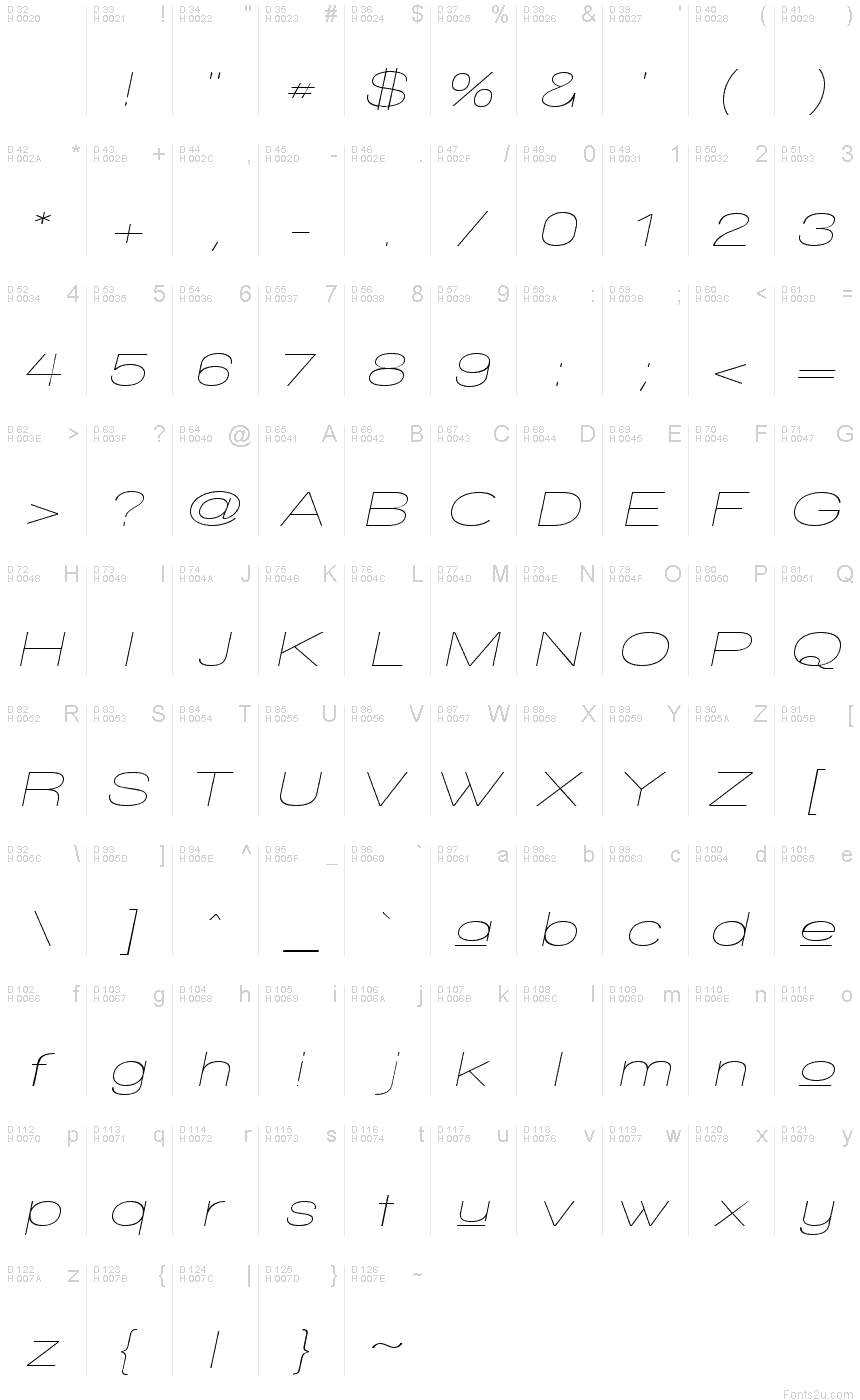
Walkway Upper Oblique Expand
Walkway Upper Oblique Expand by G.M. of GM is a free geometric sans serif with exceptionally fine strokes and clean, very broad, airy proportions. Clean oval curves sit among long, rising diagonals, and their sharp junctions make the lettering look spare, architectural, and deliberately weightless.
High-end fashion branding is its clearest setting, with the slender expanded shapes also suited to small perfume packaging, gallery posters, and arts magazine covers. Across these uses, the repeated needle-fine lines and acute angles can echo garment seams, minimalist product outlines, or delicate linear illustration.